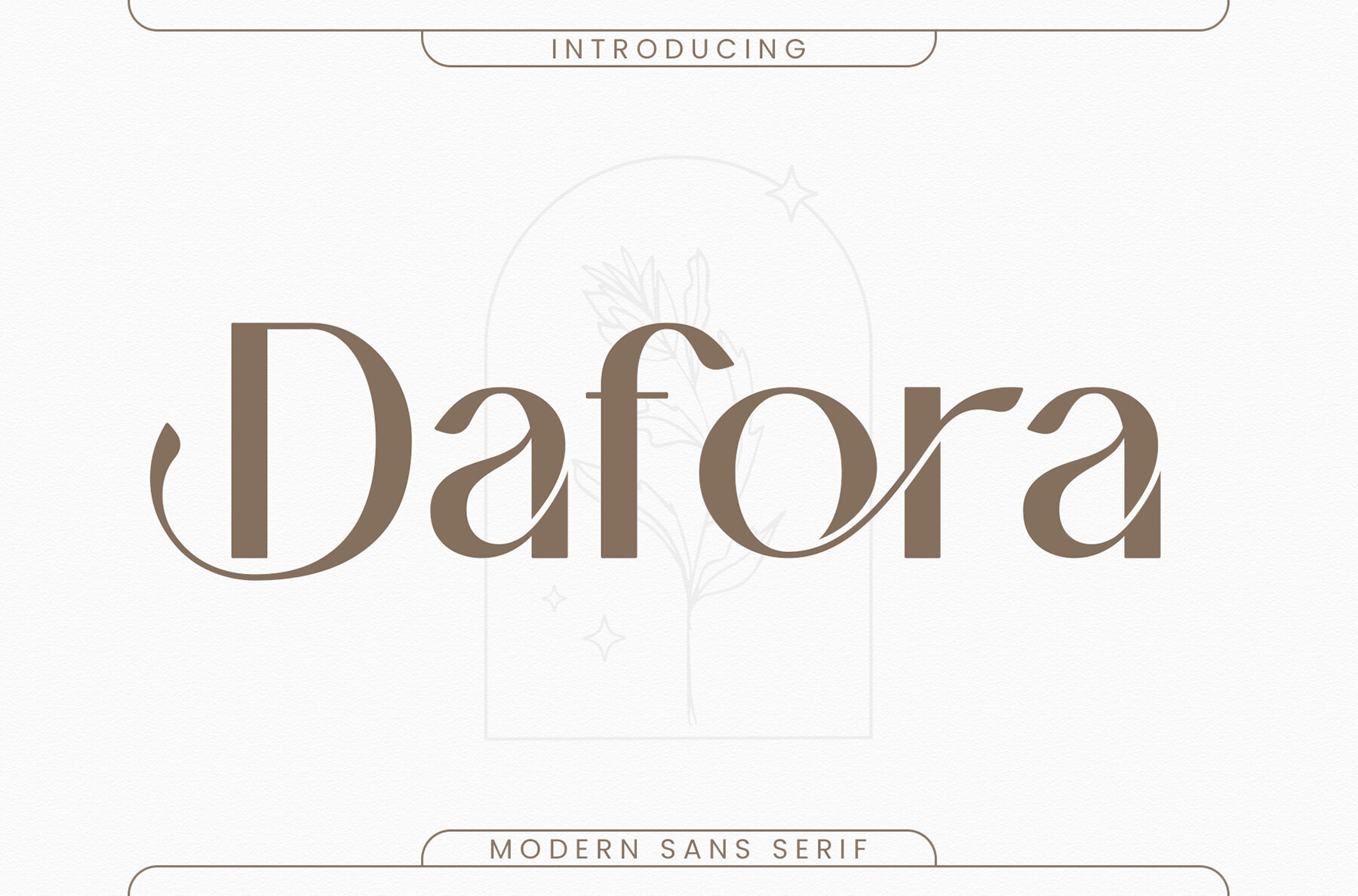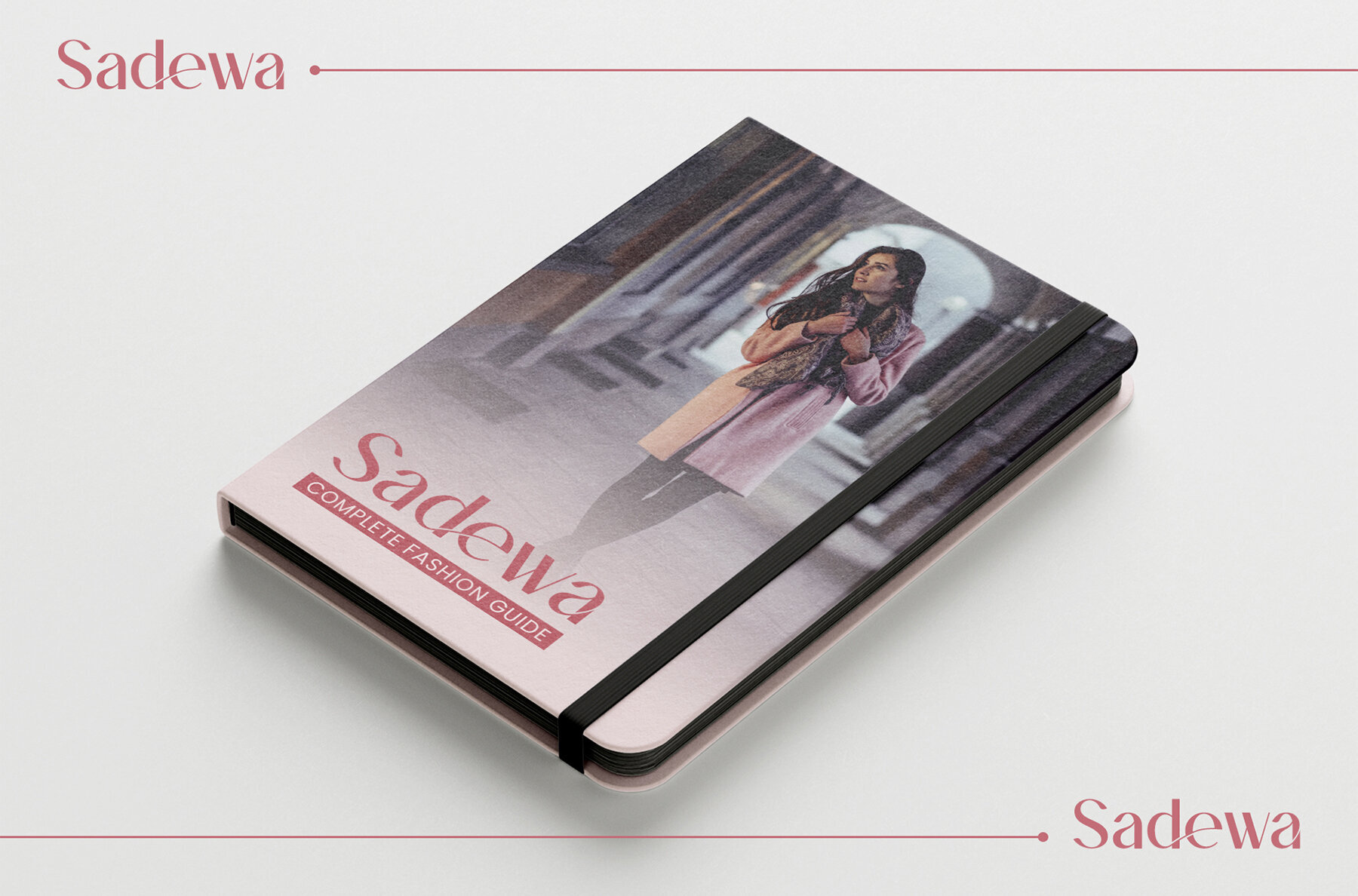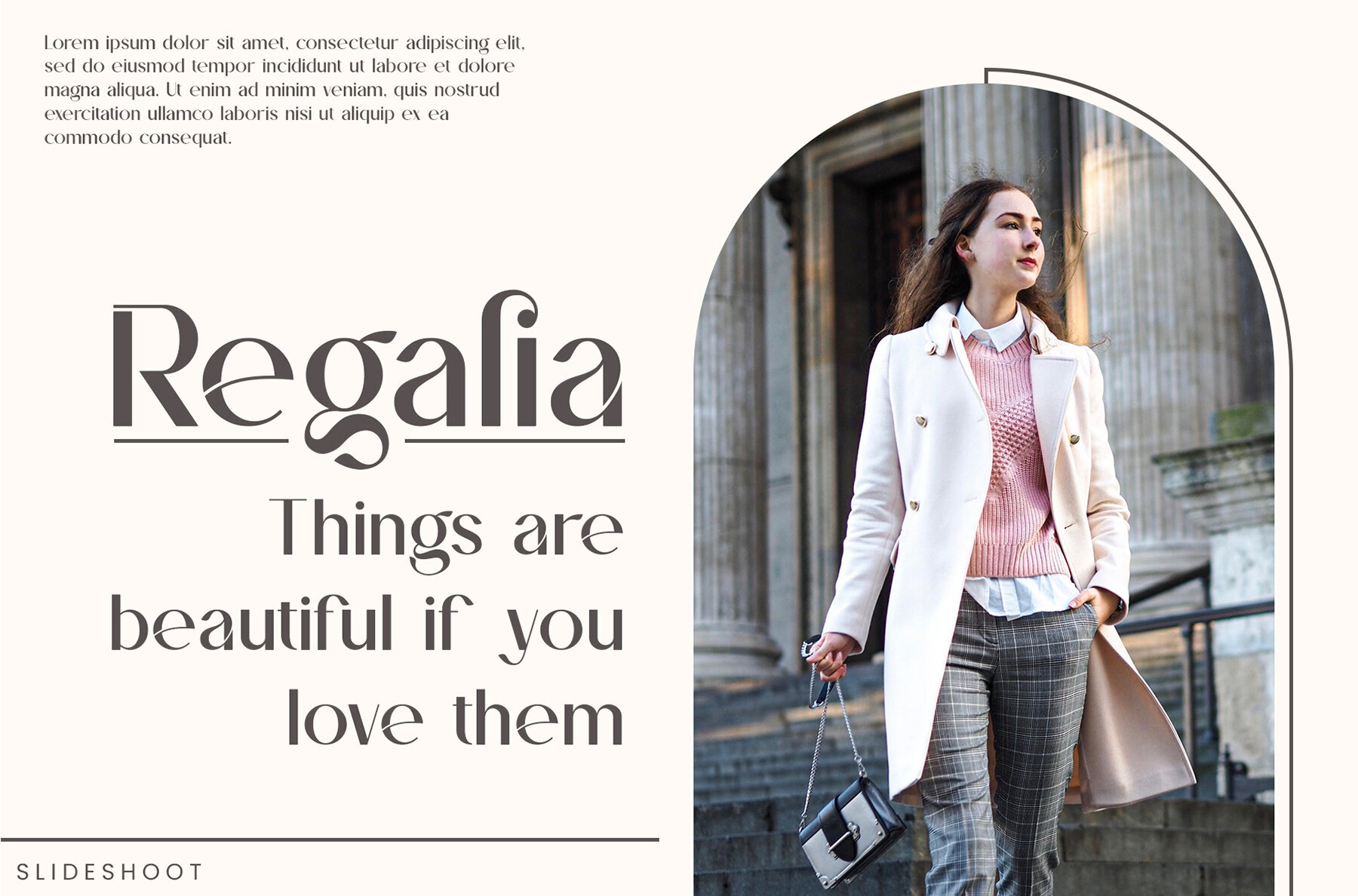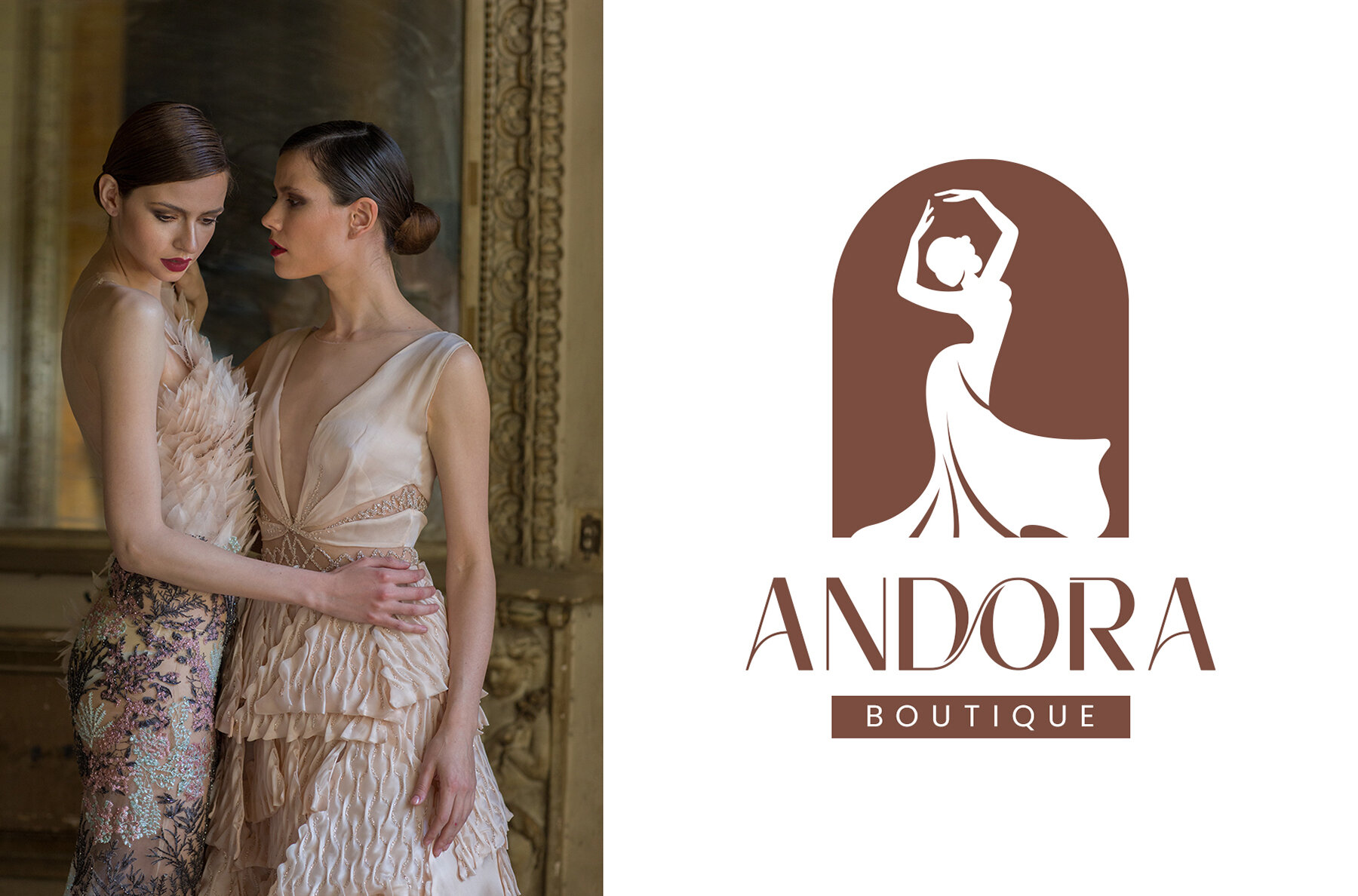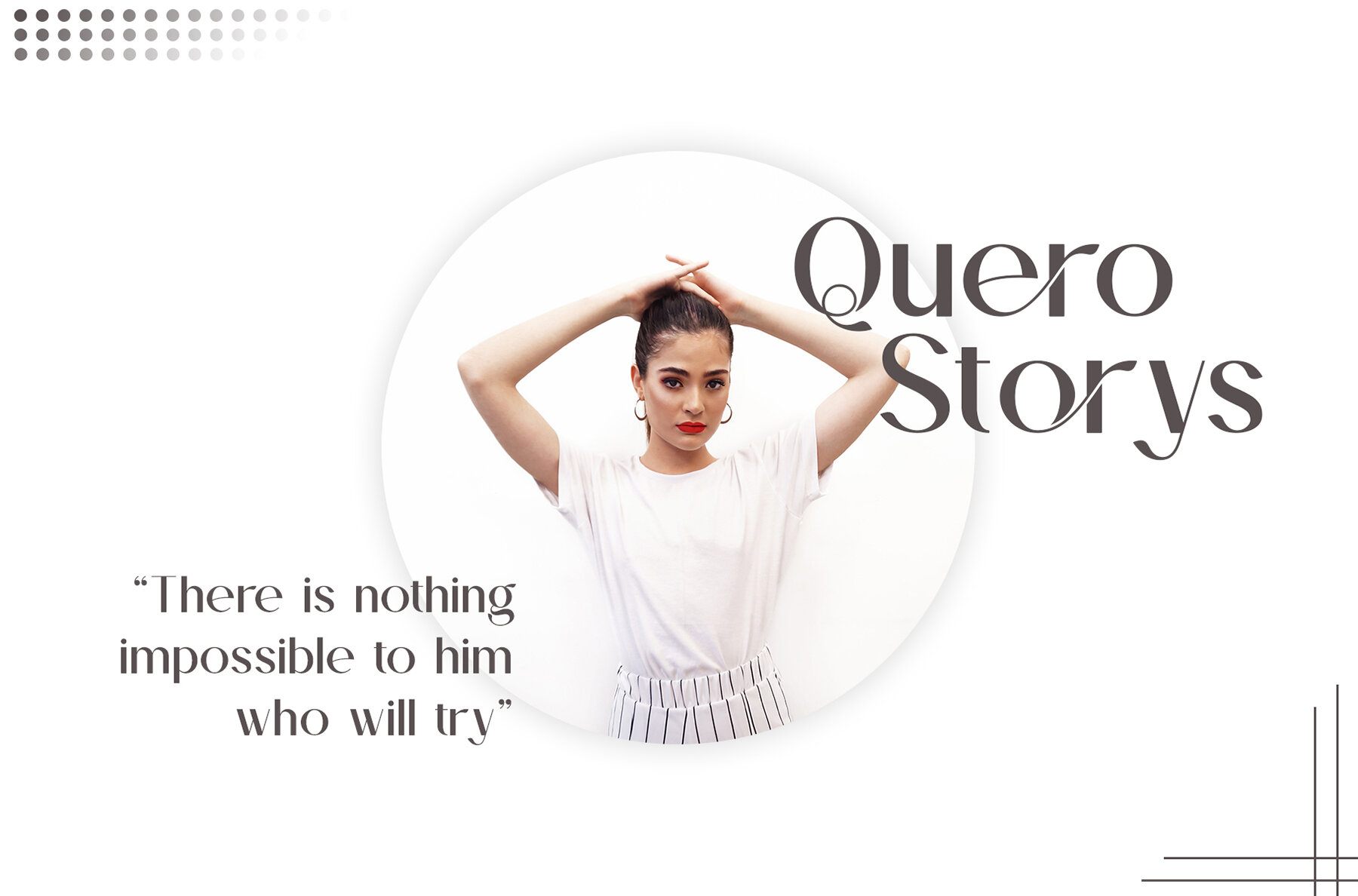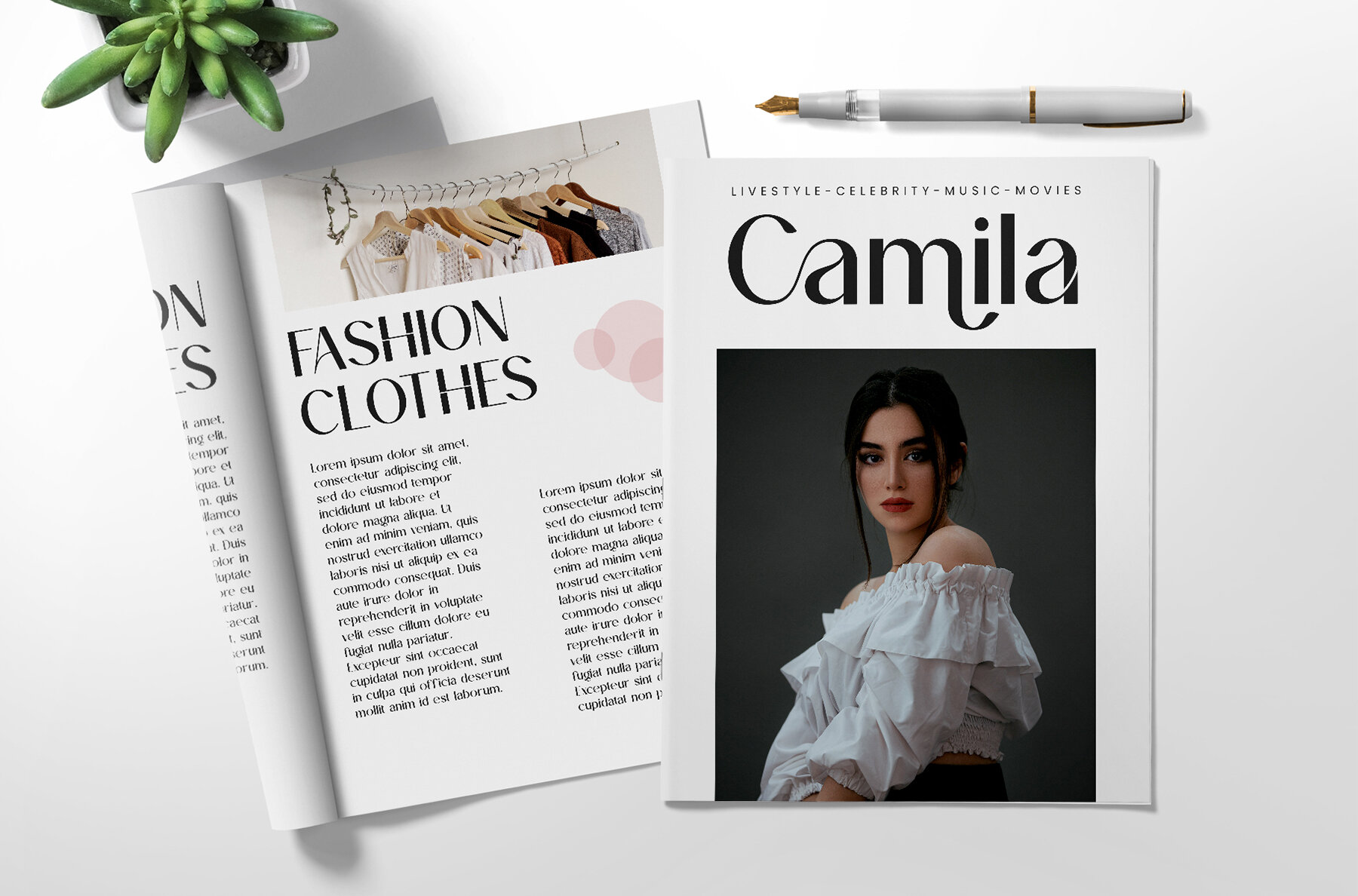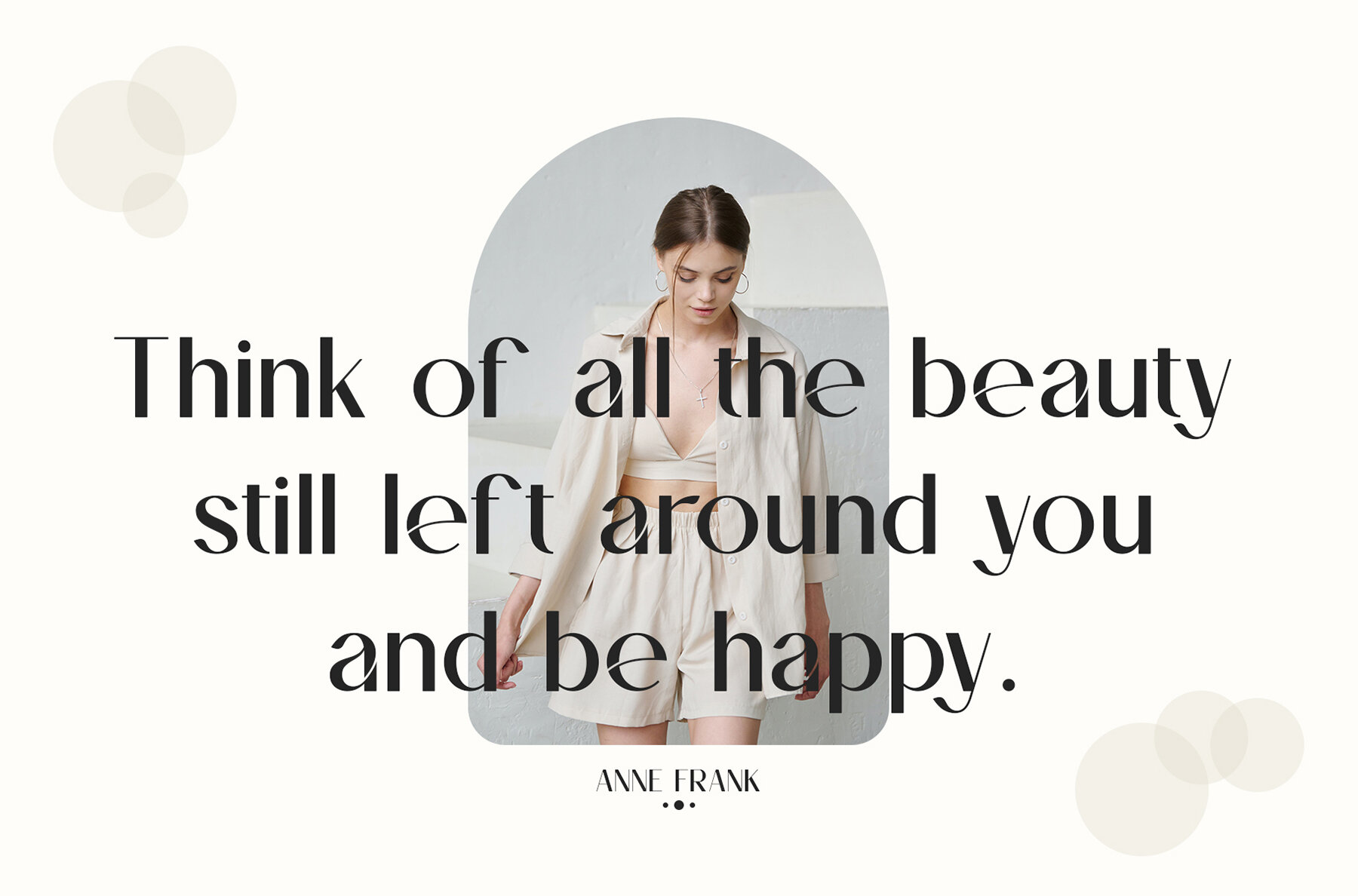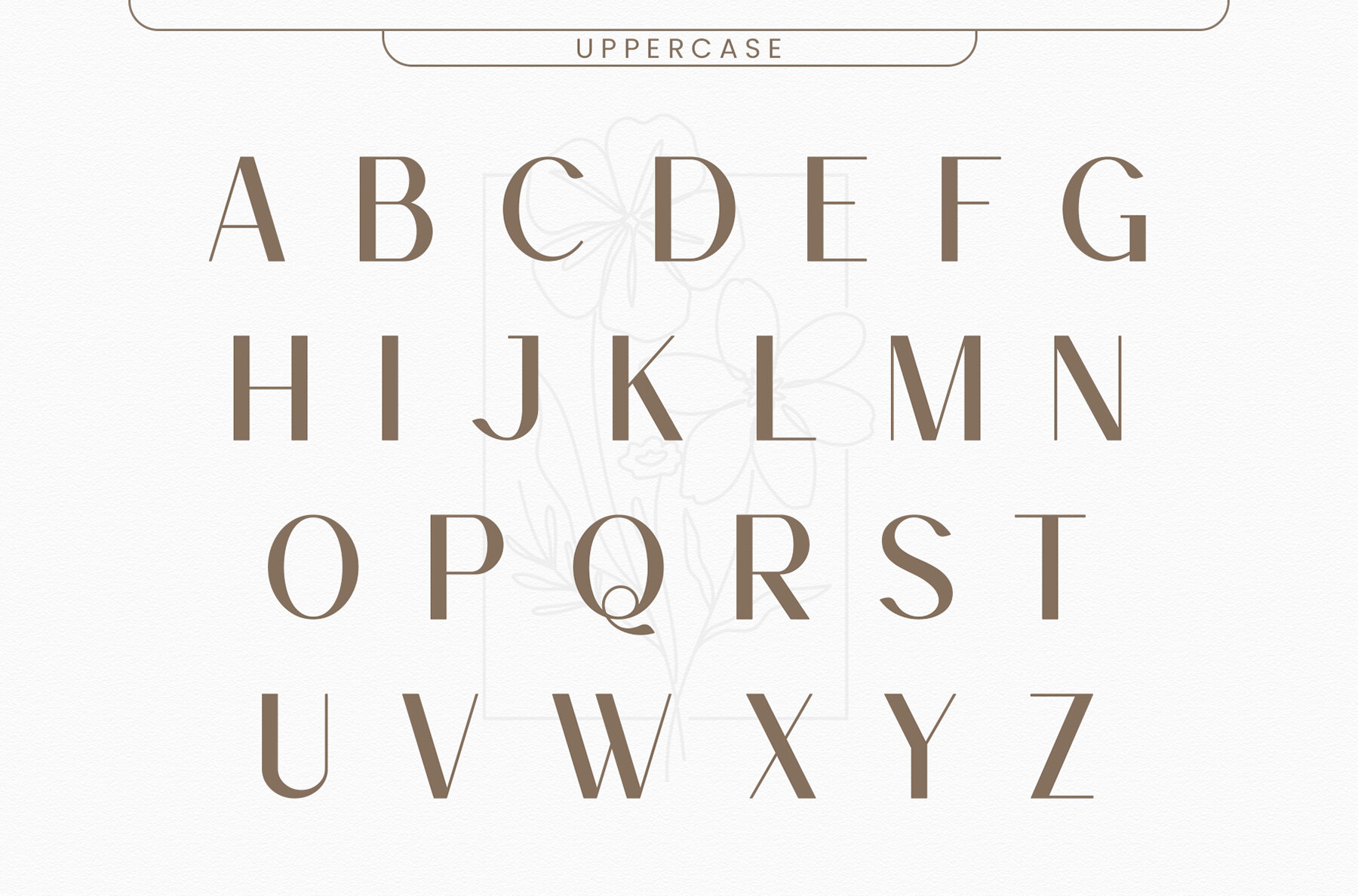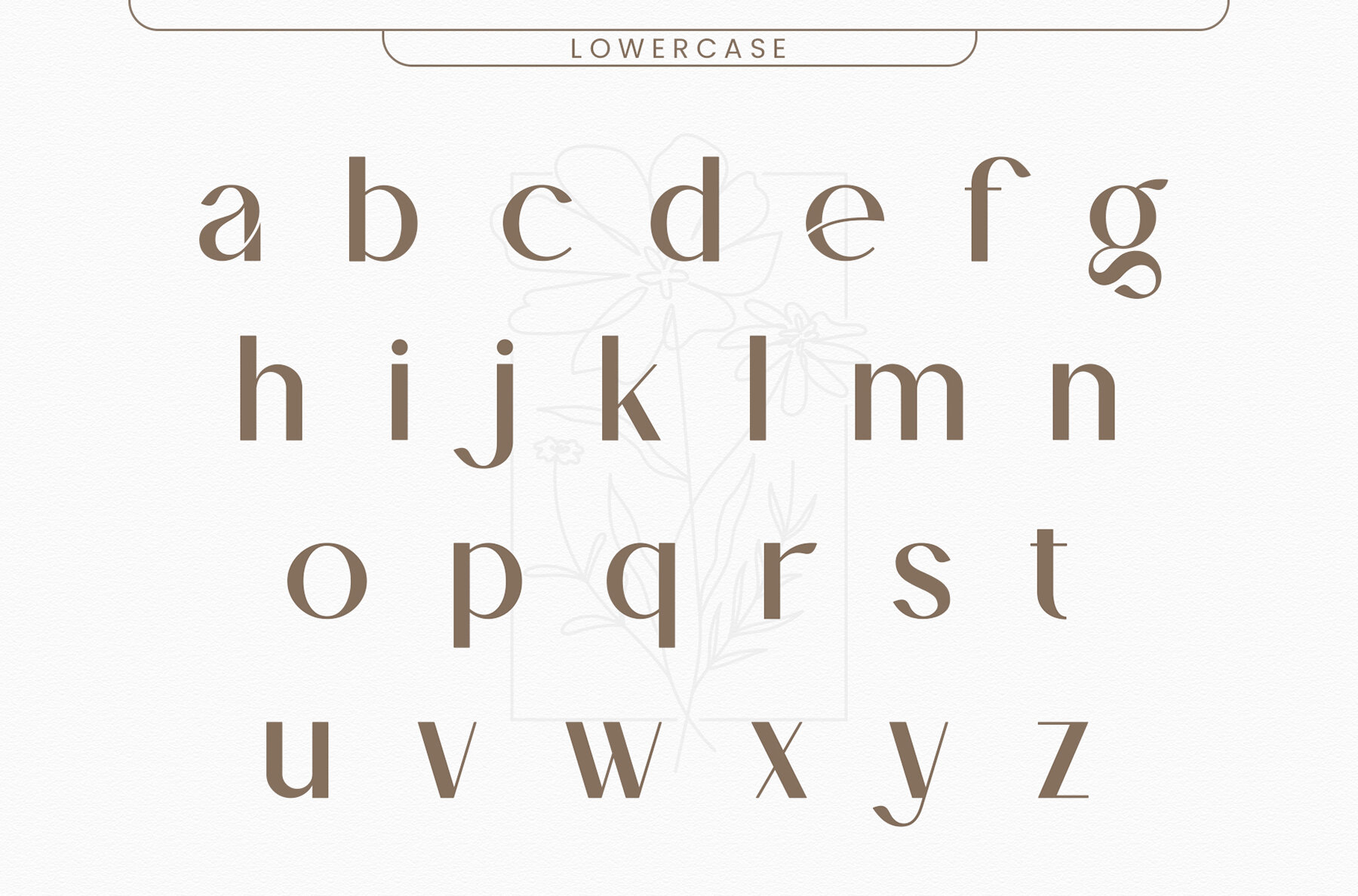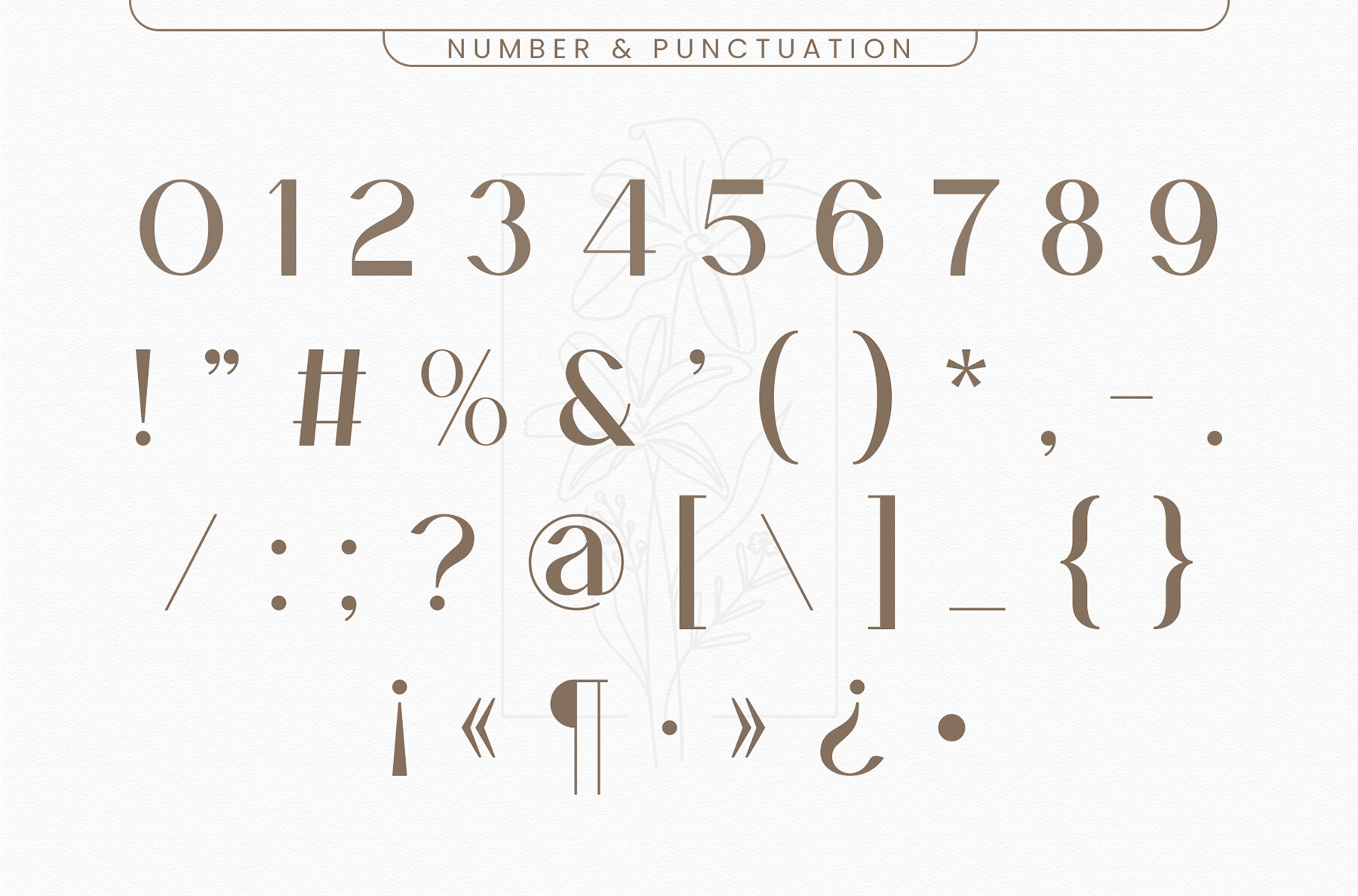
Dafora Font
Dafora Regular
Dafora Sans Serif is a balanced, smooth, and elegant serif font, perfect for numerous design applications. With its beautiful character, this font fits seamlessly with invitation card designs, company logos, movie titles, business cards, book titles, brand names, and various other projects. Dafora's subtle elegance, stylish alternates, and ligatures make it an ideal choice for sophisticated and refined designs.Dafora Sans Serif: Elegant and Stylish Typeface